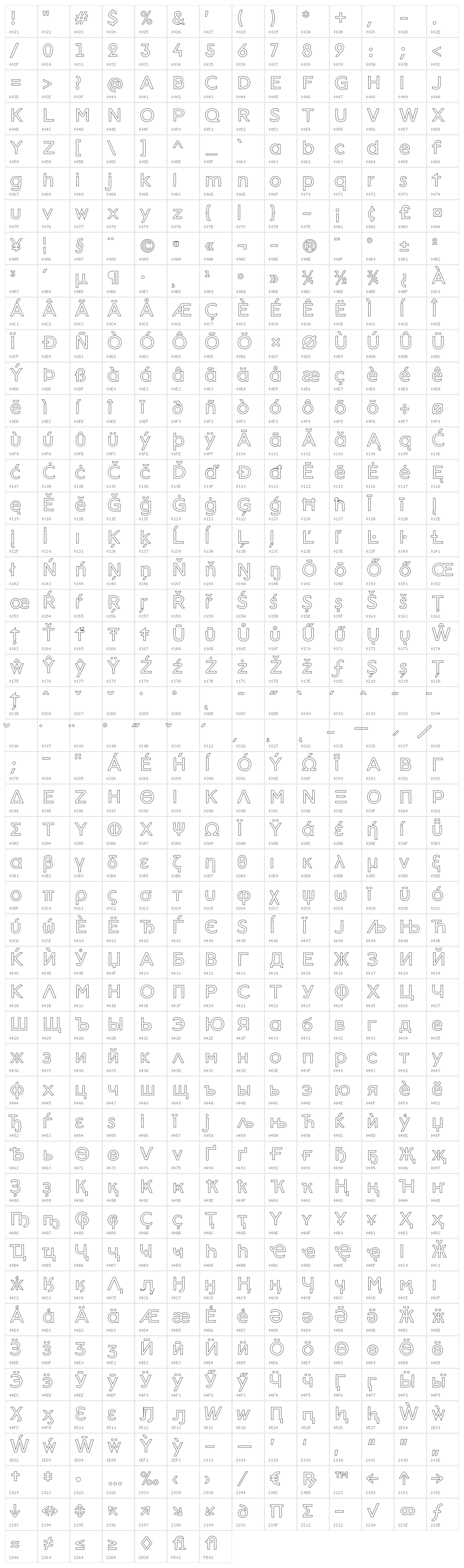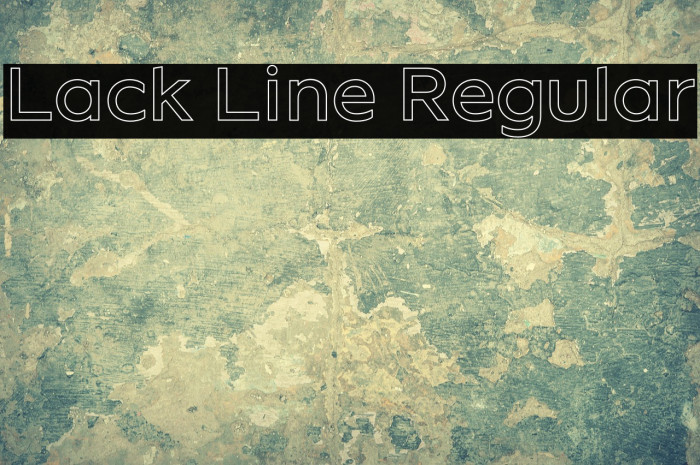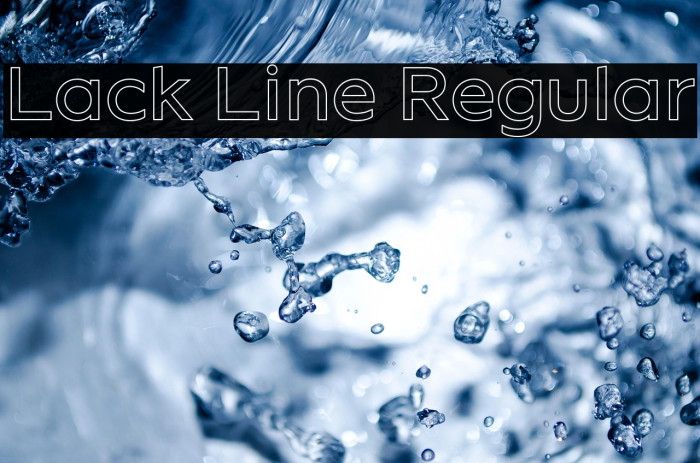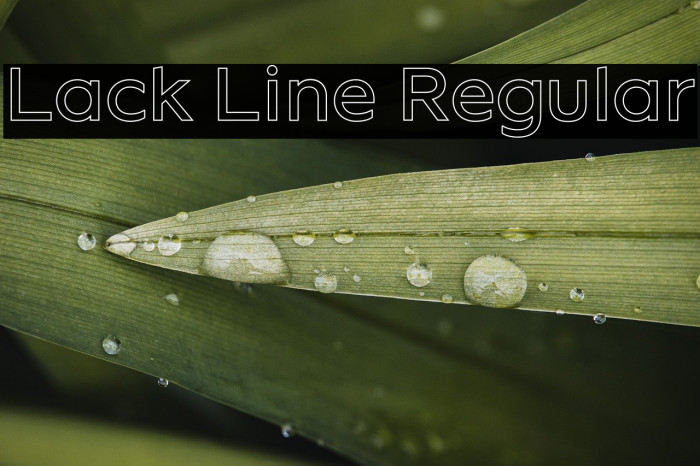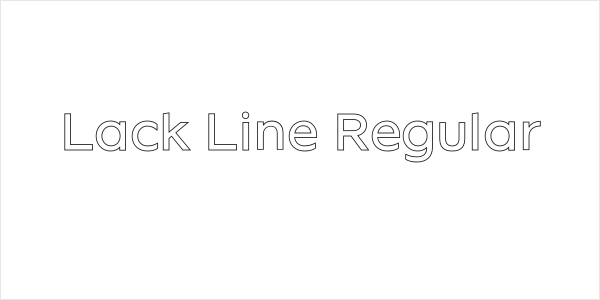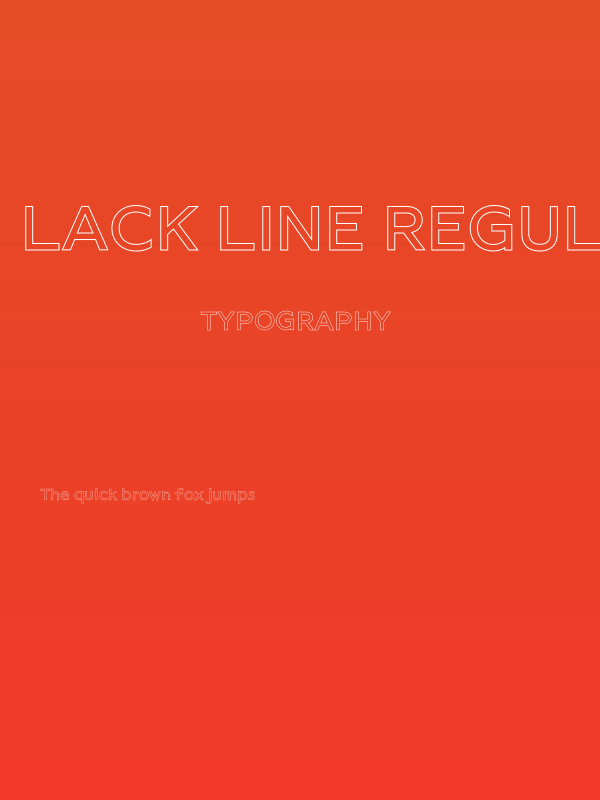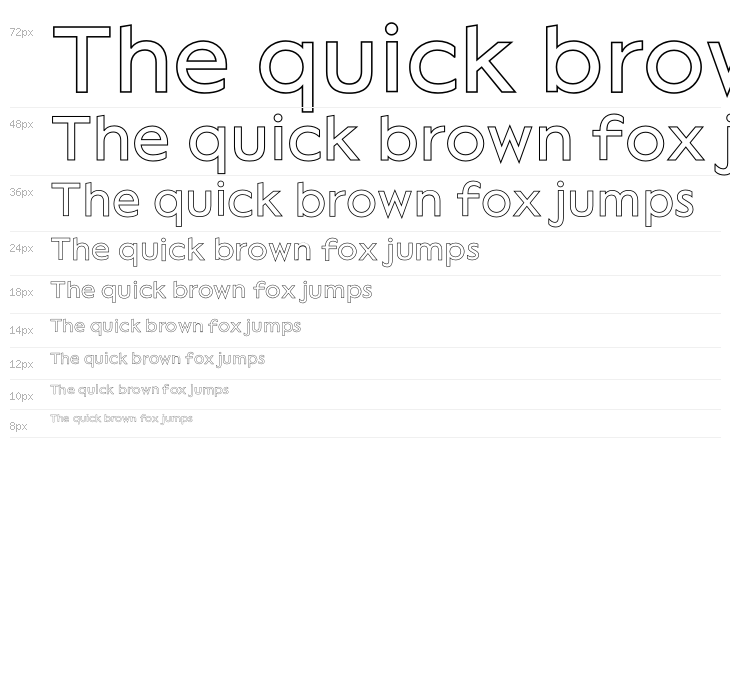
Lack Line Regular Font
Lack Line Regular Description
This font features a clean, geometric sans-serif style with a modern and minimalist aesthetic. The characters are outlined, creating a hollow effect that adds a unique visual interest. The uppercase and lowercase letters maintain a consistent height and width, contributing to a balanced and harmonious appearance. The numerals and special characters follow the same design principles, ensuring uniformity across all glyphs. The overall look is sleek and contemporary, making it suitable for a variety of design applications.